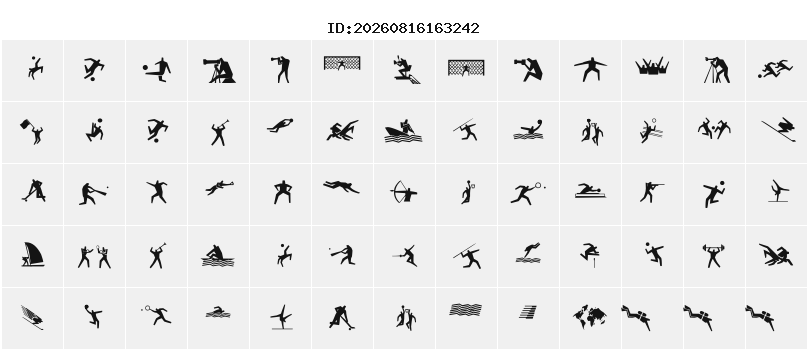
Sport 4 Ever Preview
• Font Name: Sport 4 Ever
• Manufacturer: Galdino Otten
• Description: Sports involve activities, rules and customs, by competitively there is a possibility of winning or losing what excites the practitioners. Sports also involve equipment and activities organized events tend to bring people together in one goal, to compete. The icons that were created based on different modalities and aims to illustrate the various media: Print, Television and Web.